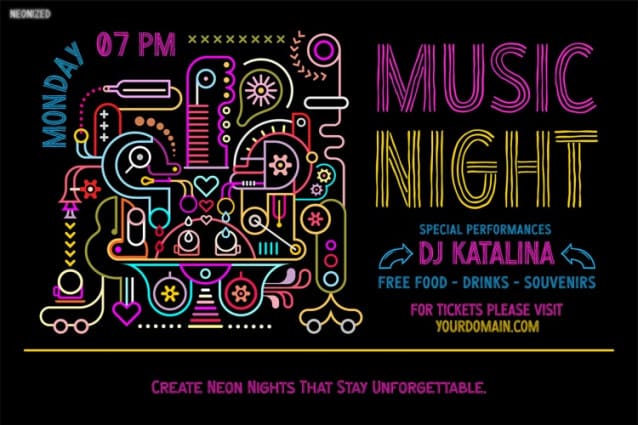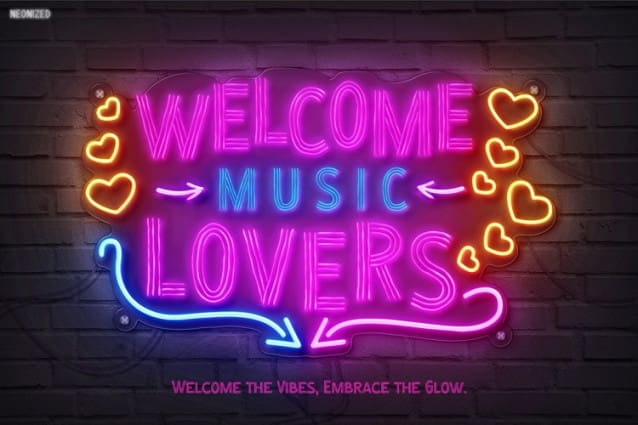
Neonized Display Font
Neonized Display Font is a bold and electrifying typeface inspired by retro-futuristic aesthetics. It captures the vibrant energy of neon signs and 80s design. Moreover, its clean geometric shapes and unique strokes mimic the glowing effect of real neon lights. As a result, it delivers a nostalgic yet modern vibe. The bold and polished design ensures readability while providing a striking visual impact. Therefore, it is ideal for creating attention-grabbing social media posts, event flyers, or branding materials. Above all, Neonized Display adds a dynamic and eye-catching touch to any project.
This font pairs especially well with vibrant gradients, minimalist layouts, or futuristic visuals. For instance, it works beautifully for headings, logos, and display text that need bold statements. Furthermore, the blend of playfulness and sophistication makes it suitable for casual and professional settings alike. Whether used on digital platforms or print media, Neonized adapts seamlessly. Thus, it ensures your message stands out effectively. In short, this typeface isn’t just a font—it’s a tool for creating high-energy designs that captivate audiences.